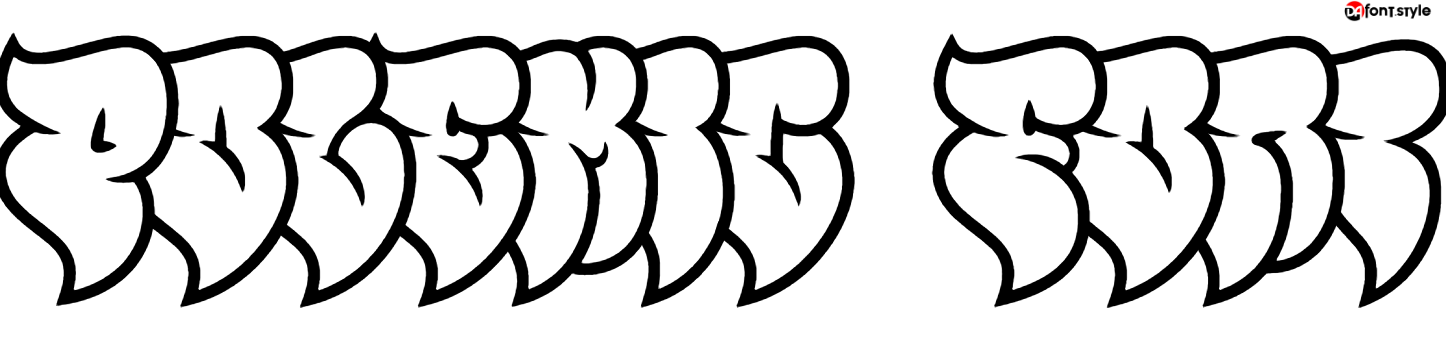
Polemic font
Polemic is a graffiti font designed by Mans Greback and published by Mans Greback AB. Chunky, loud letters inspired by wall art and street tags give it plenty of attitude. You can download it for free and test it with your own words in the preview above.
What You Can Type With Polemic
You get every letter from A to Z in both cases and all the numbers from 0 to 9, which means Polemic can handle full sentences, dates and prices. Common punctuation such as &, !, ? and @ is included as well. It also has the accented letters you need for Spanish, French, German, Portuguese and Italian.
Where Polemic Works Best
Designers usually reach for fonts like Polemic when they're making streetwear, album covers and urban posters. Use it big and give it room. Graffiti letters are packed with detail, so they look best as one or two words, not full sentences.
Does Polemic support accented letters?
Yes. Polemic includes the accented letters needed for Spanish, French, German, Portuguese and Italian, so it works for more than just English.
What fonts pair well with Polemic?
Balance it with a heavy, simple sans serif like Bebas Neue or Anton for the supporting text.